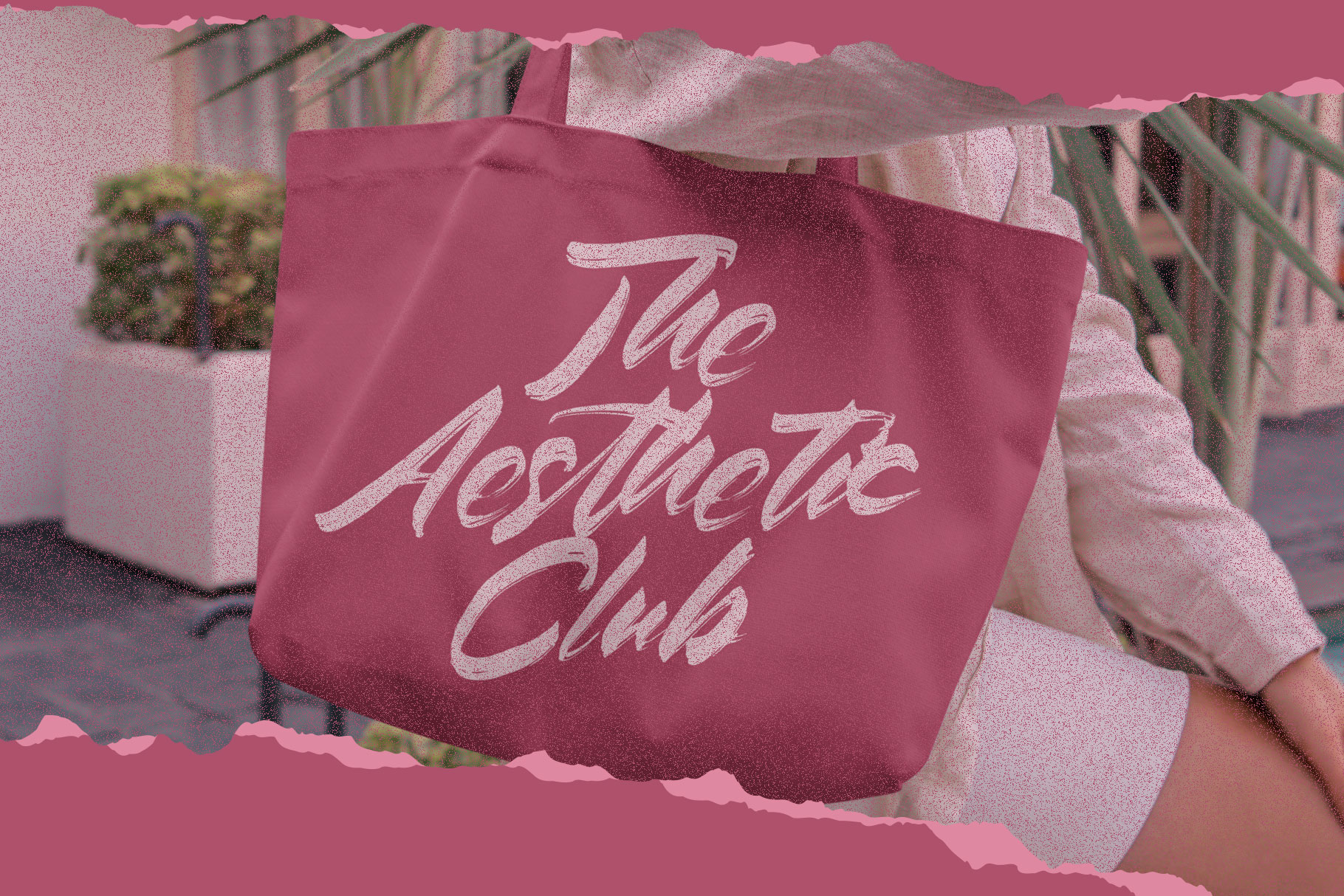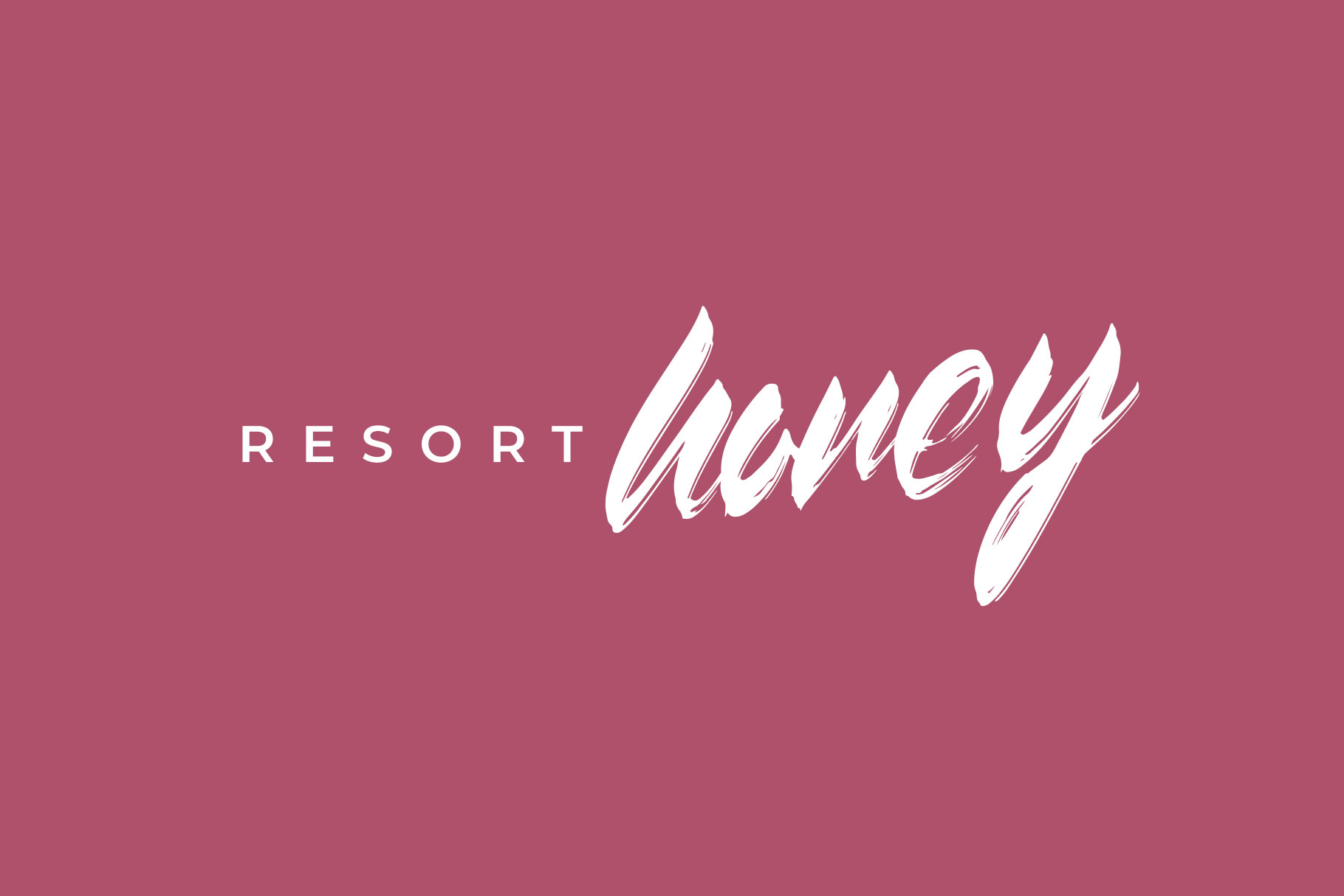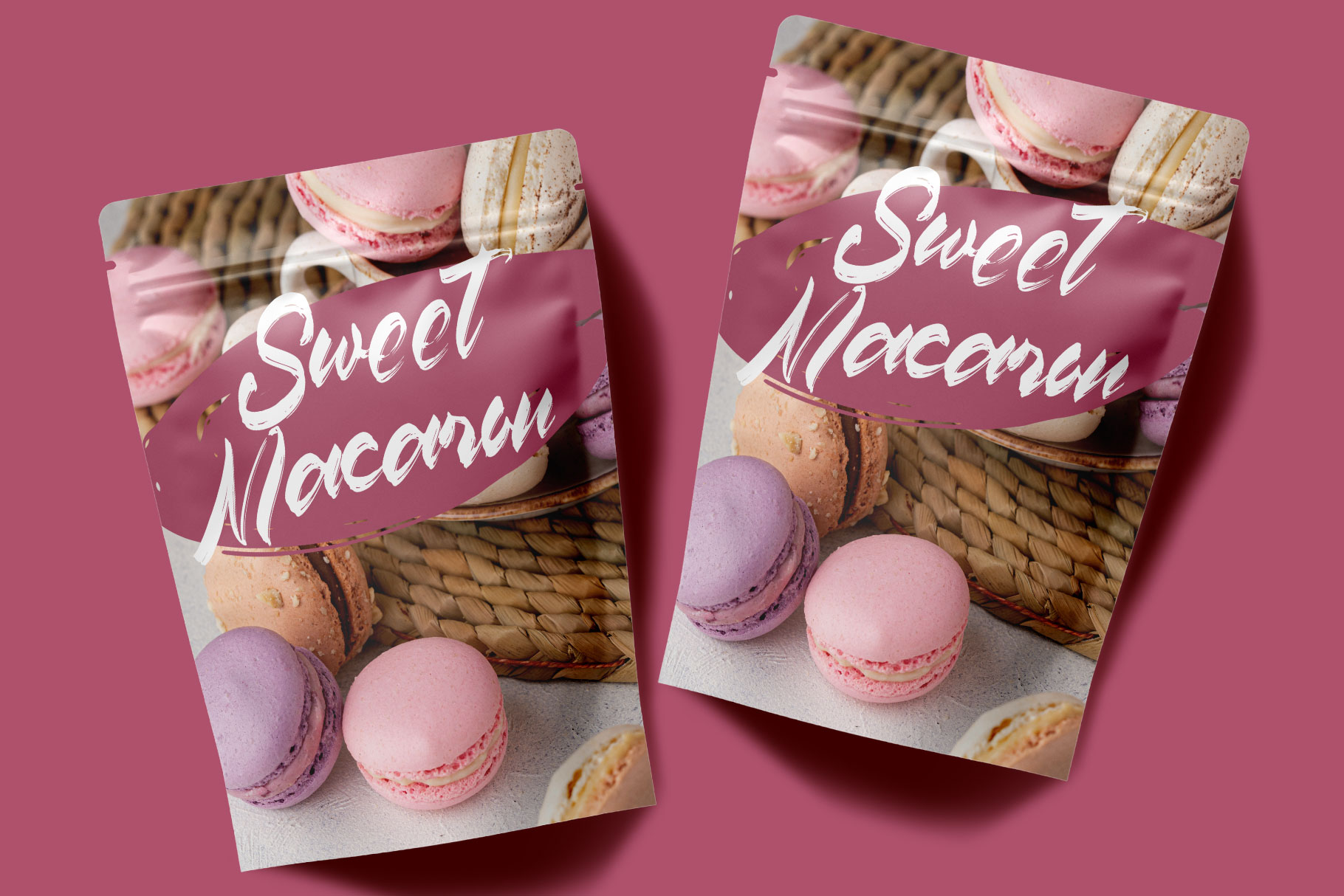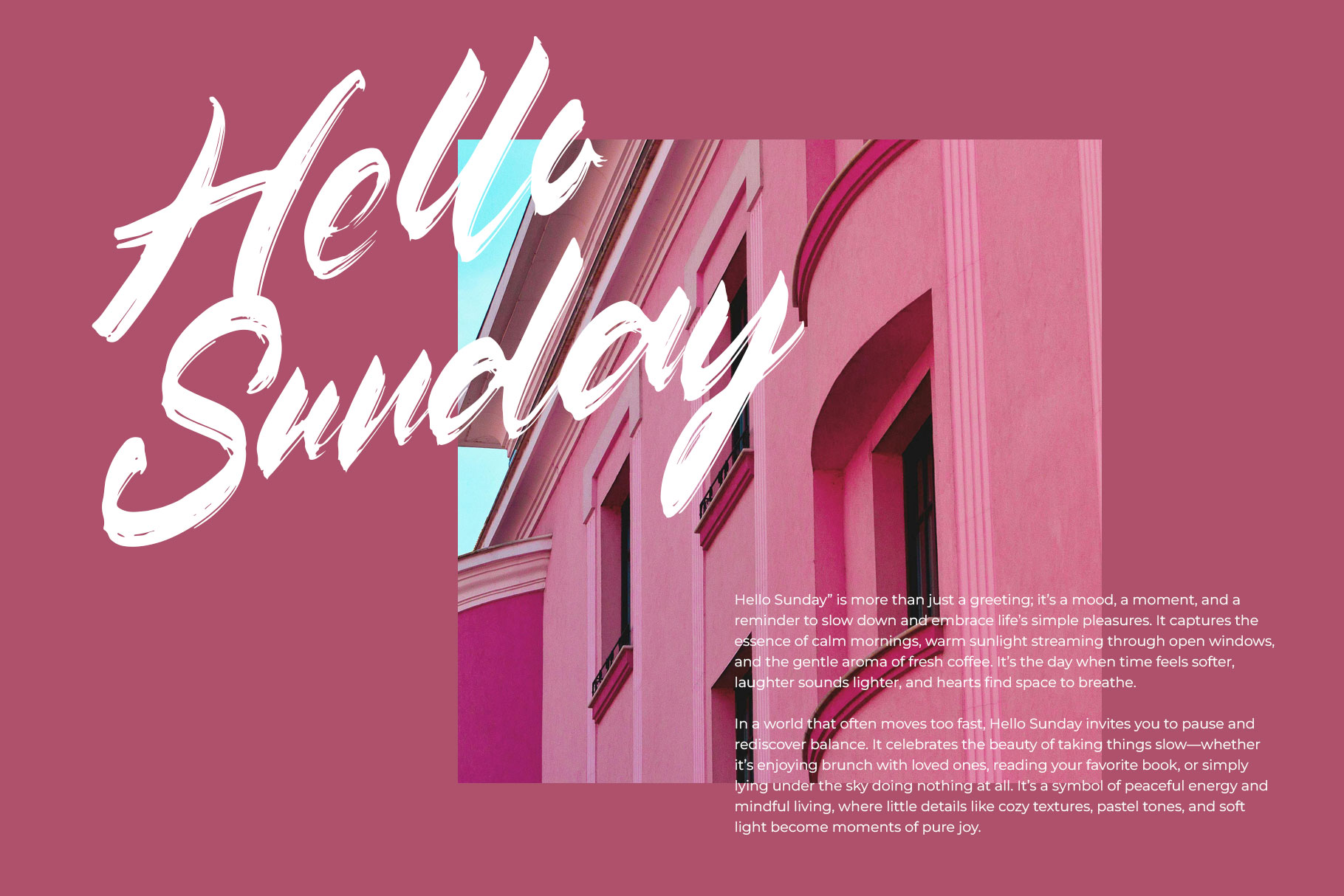
Pink Culture Modern Brush Font
Pink Culture is brush font embodies a sense of freedom, confidence, and personality. Each letter flows with expressive movement, mimicking the authentic touch of a brush dipped in ink or paint.
Pink Culture is a perfectly choice for any creative endeavor, chic, lifestyle design such as logotype, advertisements, watermark on photography, stationery, branding project, display and magazine, invitation, corporate brand, product design, label, business project and many other project with modern touch.